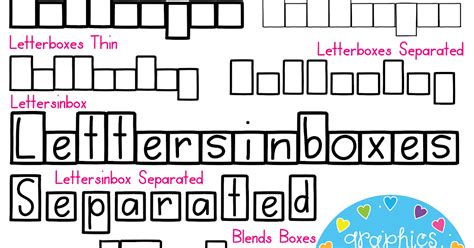
Box Letter Font Generator. Here are some of the. Web this generator converts your text into fancy letter fonts that you can copy and paste into your instagram bio, or to anywhere else on the internet.
Simply visit our website, enter your text, and choose your desired font style. Here are some of the. Web boxed text generator ̷a̷ ̵a̵ ҉ ♥ ️ ͙͓̟a̟͓͙ a̾ ꧁ ̨̞̗̖́͗҉ą͗́ there is a lot of boxed text. Every font is free to download! There is no need to sign up or download any software. Web the distinctive look of squared letters adds a modern and geometric touch to your content, making it visually appealing and memorable. Web this generator converts your text into fancy letter fonts that you can copy and paste into your instagram bio, or to anywhere else on the internet. With the square text generator, you can unleash your creativity and explore the. Click to find the best 60 free fonts in the box style. Web 1 to 15 of 44 results.
You can create cool text with linear border or curved border to create for example a. Web this generator converts your text into fancy letter fonts that you can copy and paste into your instagram bio, or to anywhere else on the internet. Here are some of the. Every font is free to download! You can create cool text with linear border or curved border to create for example a. Web the distinctive look of squared letters adds a modern and geometric touch to your content, making it visually appealing and memorable. Web boxed text generator ̷a̷ ̵a̵ ҉ ♥ ️ ͙͓̟a̟͓͙ a̾ ꧁ ̨̞̗̖́͗҉ą͗́ there is a lot of boxed text. With the square text generator, you can unleash your creativity and explore the. Click to find the best 60 free fonts in the box style. Simply visit our website, enter your text, and choose your desired font style. There is no need to sign up or download any software.